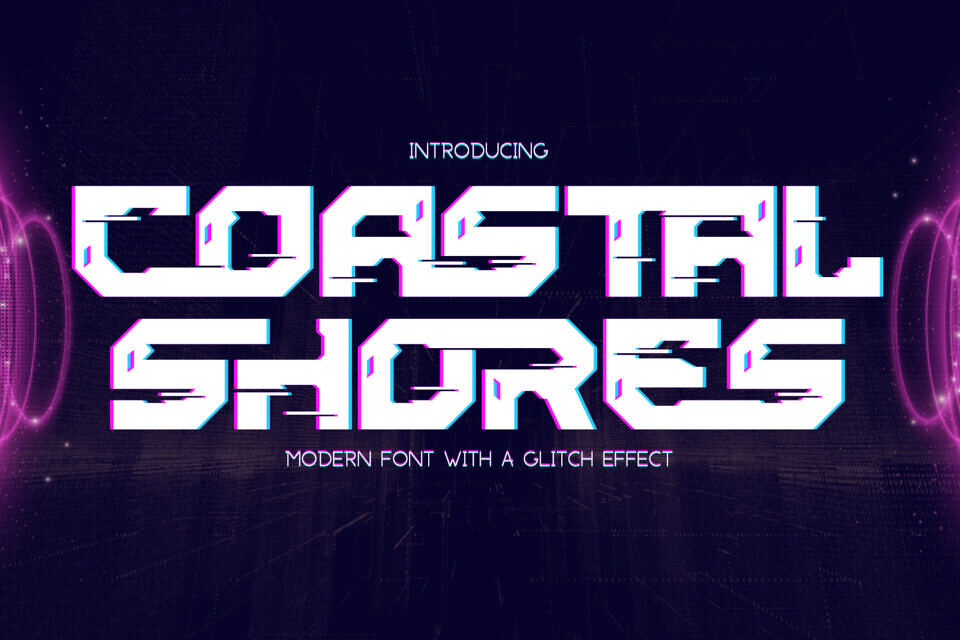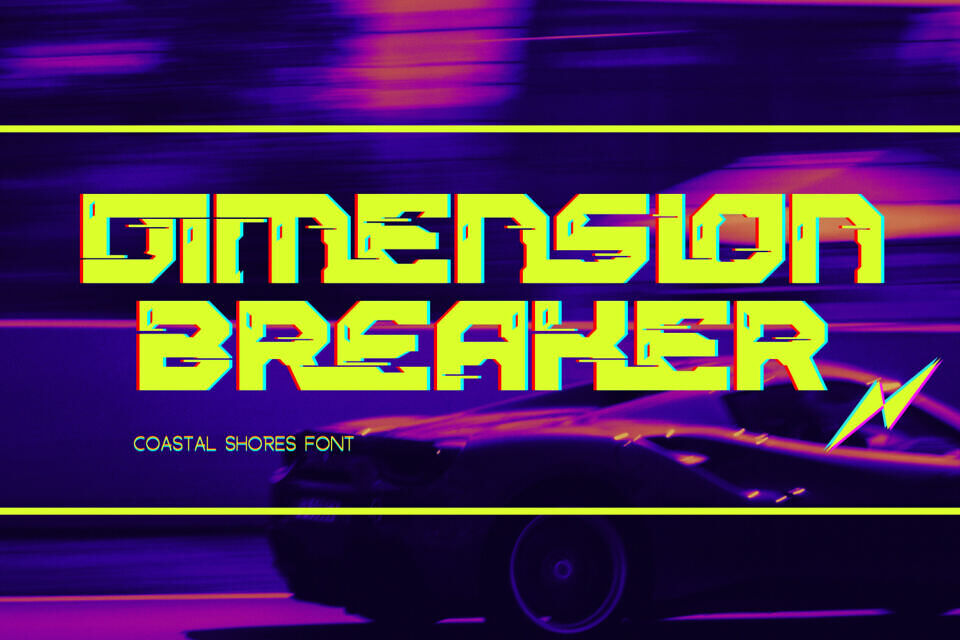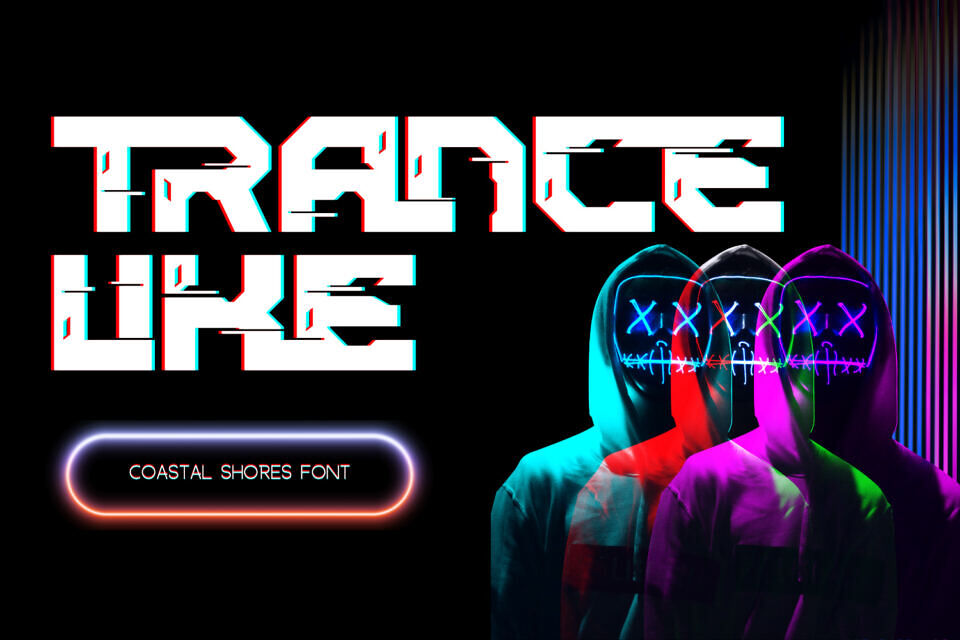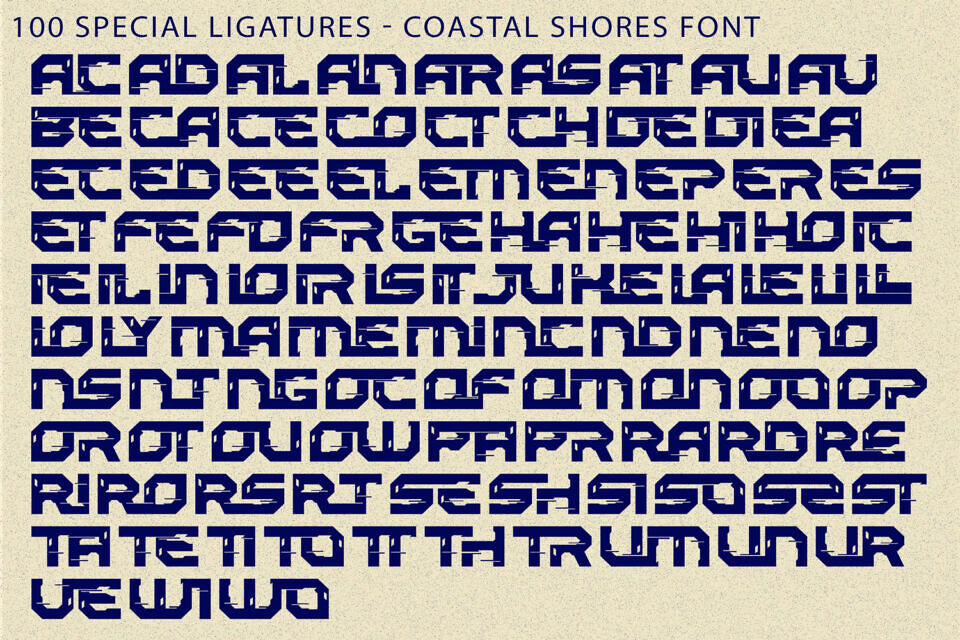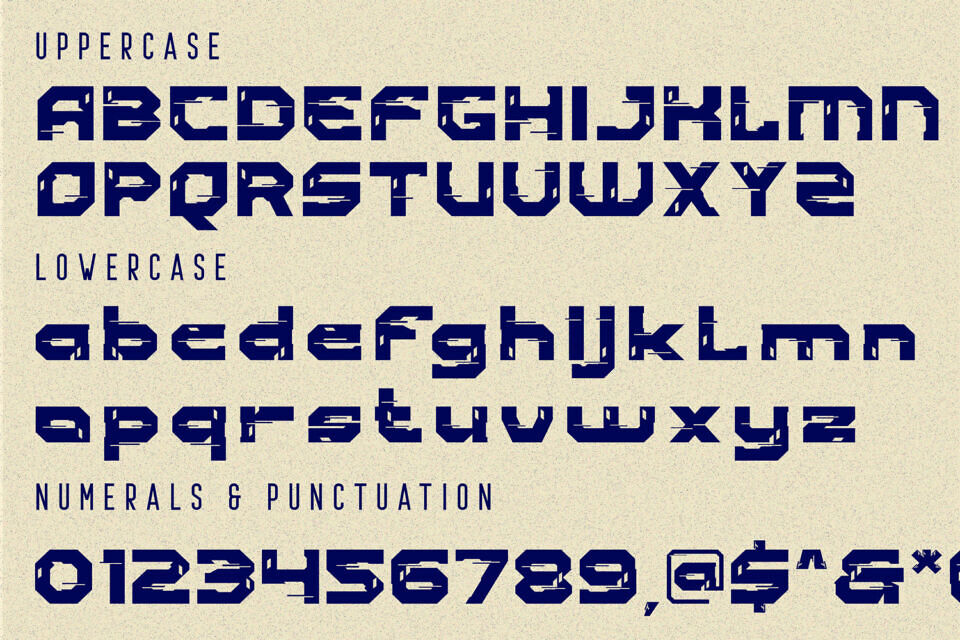
Coastal Shores Font
COASTAL SHORES is a bold futuristic display font infused with dynamic glitch effects and cyberpunk energy. Built with strong geometric letterforms and sharp angular cuts, this typeface delivers a powerful digital aesthetic inspired by modern technology and gaming culture.
The distinctive glitch details and pixel-shift elements give each character a sense of motion and disruption, mimicking the look of digital interference and screen distortion. Enhanced with subtle neon-style accents, COASTAL SHORES creates a striking visual presence that stands out in any composition.